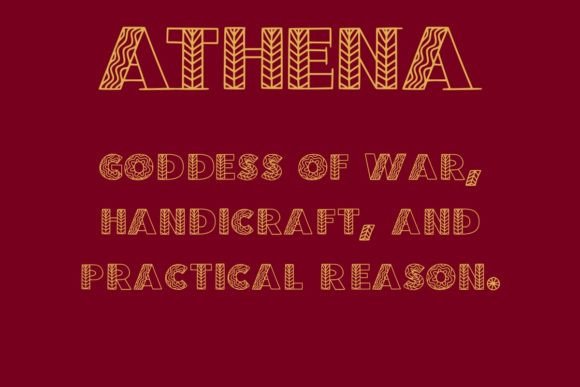
Athena Font: Elevate Your Designs with a Stylish Heavy Display Font
Are you looking for a font that can add a touch of elegance and sophistication to your designs? Look no further than the Athena Font, a stylish heavy display font that is perfect for creating typographic designs with a hand-lettered feel and great impact.
What is Athena Font?
Athena Font is a beautifully crafted font that features a unique patterning design, giving it a distinctive and eye-catching look. This font is perfect for designers who want to create stunning visual effects, from Christmas cards to wedding invitations, and everything in between.
Scandi Design with a Nordic Look and Feel
Athena Font is particularly well-suited for Scandi design, with its clean lines, minimalist aesthetic, and Nordic look and feel. The font’s bold and heavy design makes it perfect for creating striking typographic designs that are sure to grab attention.
Perfect for Christmas Cards and Weddings
With its festive and elegant design, Athena Font is a great choice for Christmas cards and wedding invitations. Imagine using it in white on a red background, with blue accents to add a pop of color. The result is a design that is both stylish and sophisticated.
Tips for Using Athena Font
Here are a few tips for using Athena Font to create stunning designs:
- Use it in white on a red background, with blue accents to create a festive and eye-catching design.
- Experiment with different colors to add a unique touch to your designs.
- Try coloring in the transparent part of each letter in a different color to create a truly one-of-a-kind design.
- Use Athena Font to create striking typographic designs that are sure to grab attention.
Why Choose Athena Font?
So why choose Athena Font for your design needs? Here are just a few reasons:
- Unique Design: Athena Font features a unique patterning design that sets it apart from other fonts.
- High-Impact: The font’s bold and heavy design makes it perfect for creating striking typographic designs.
- Versatile: Athena Font can be used for a wide range of design projects, from Christmas cards to wedding invitations.
- Elegant: The font’s clean lines and minimalist aesthetic make it perfect for creating elegant and sophisticated designs.
In conclusion, Athena Font is a stylish heavy display font that is perfect for designers who want to create stunning typographic designs with a hand-lettered feel and great impact. With its unique patterning design, Nordic look and feel, and versatility, it’s a great choice for a wide range of design projects. So why not give it a try and see the amazing results for yourself?
Get Creative with Athena Font
Whether you’re a designer, crafter, or DIY enthusiast, Athena Font is a great addition to your toolkit. With its ease of use and stunning design, it’s perfect for creating everything from Christmas cards to wedding invitations, and beyond. So get creative with Athena Font today and see what amazing designs you can come up with!